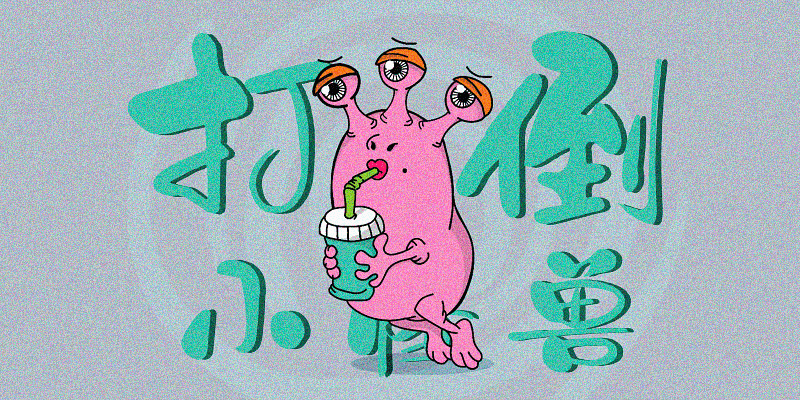
HelloFont ID Kuo Ai Ti Font Free Download is a modern, elegant Chinese-inspired typeface that combines clean, contemporary design with subtle traditional influences. Featuring smooth, flowing strokes and balanced letterforms, this font is perfect for projects that require sophistication and readability, such as branding, editorial design, signage, and product packaging.
The HelloFont ID Kuo Ai Ti Font is ideal for designs that need a timeless and refined touch. Whether you're creating luxury branding, event invitations, or promotional materials, this font adds a sense of elegance while maintaining excellent legibility. Its harmonious design ensures it works well in both digital and print applications.